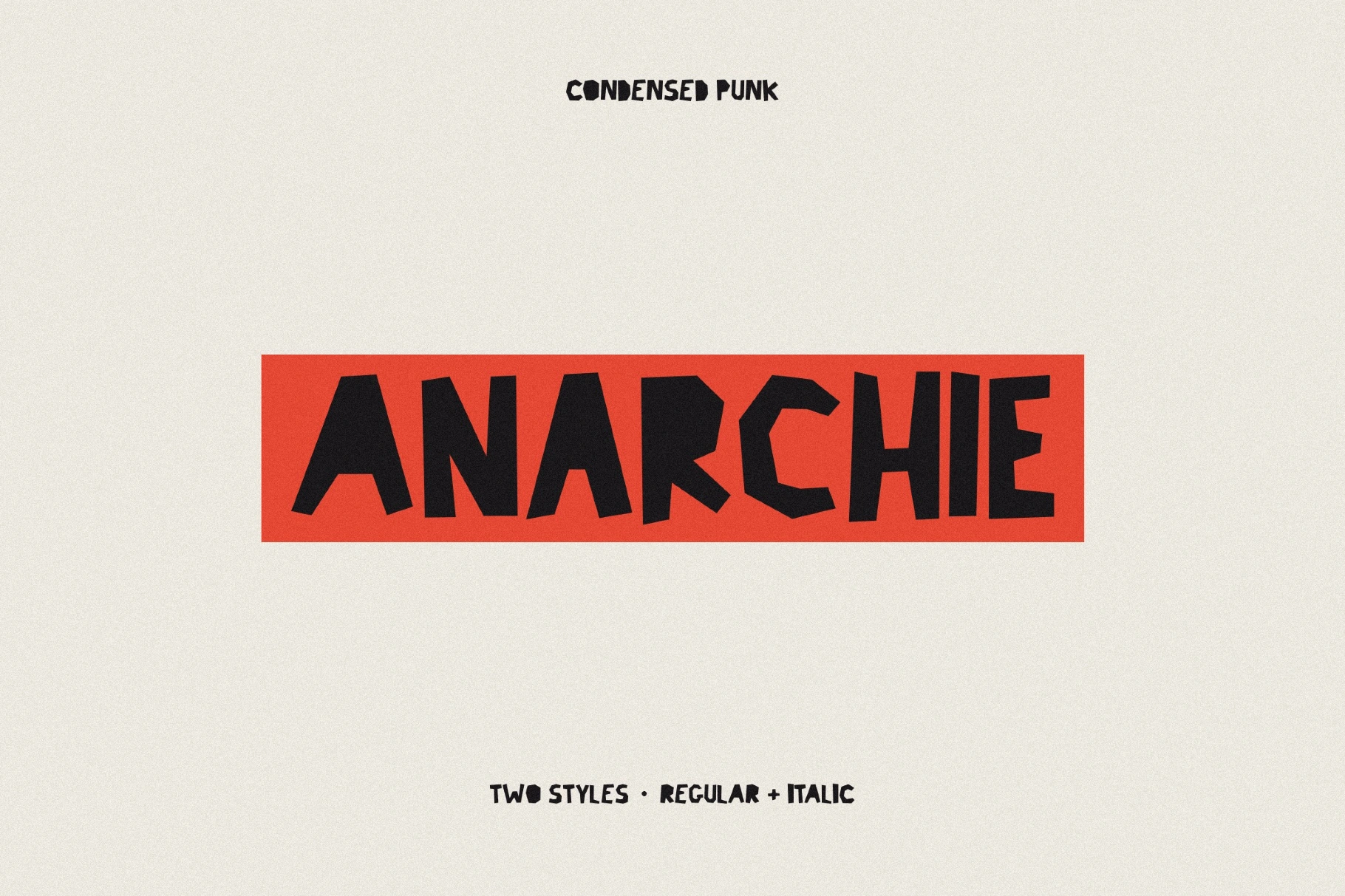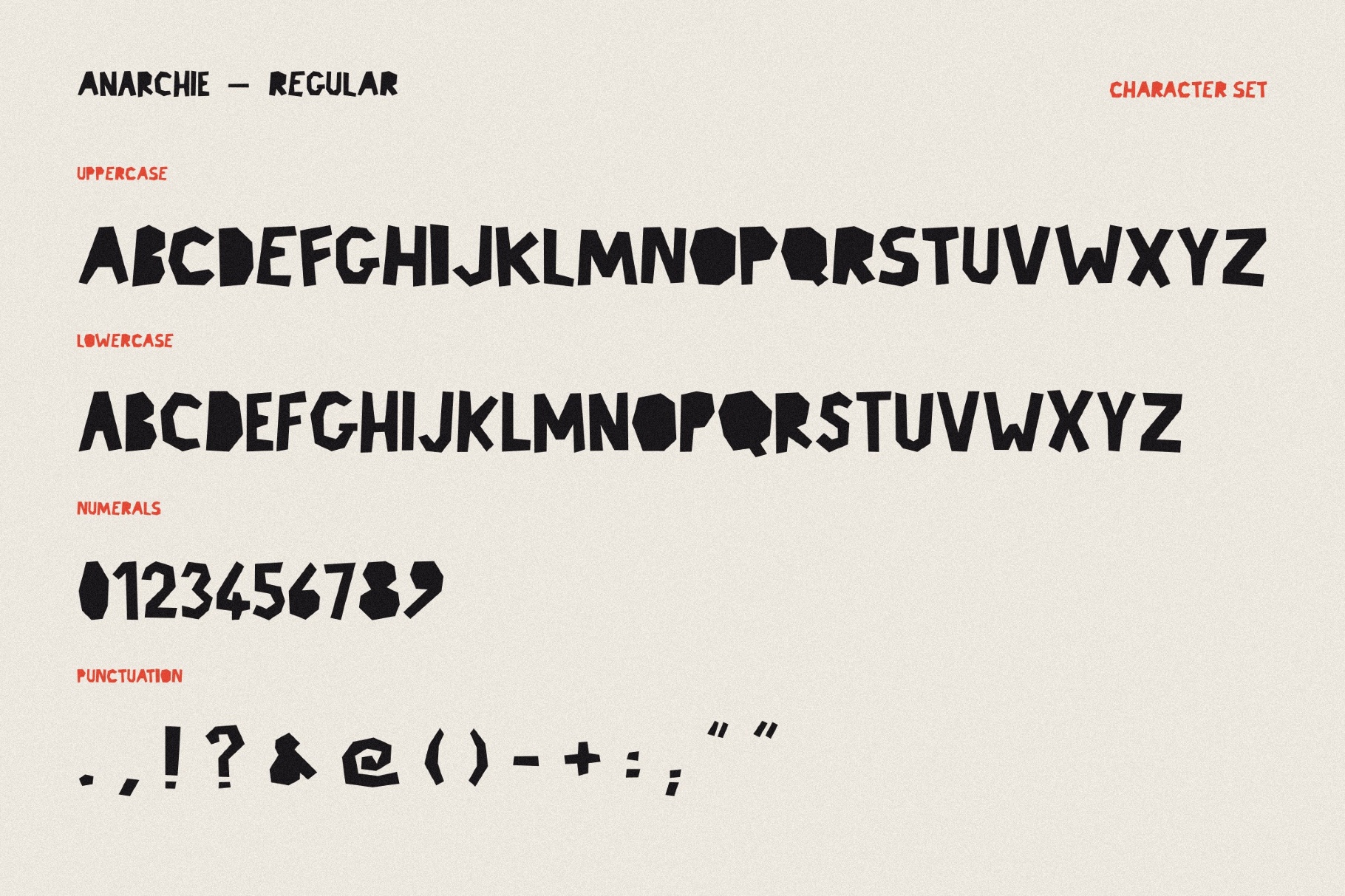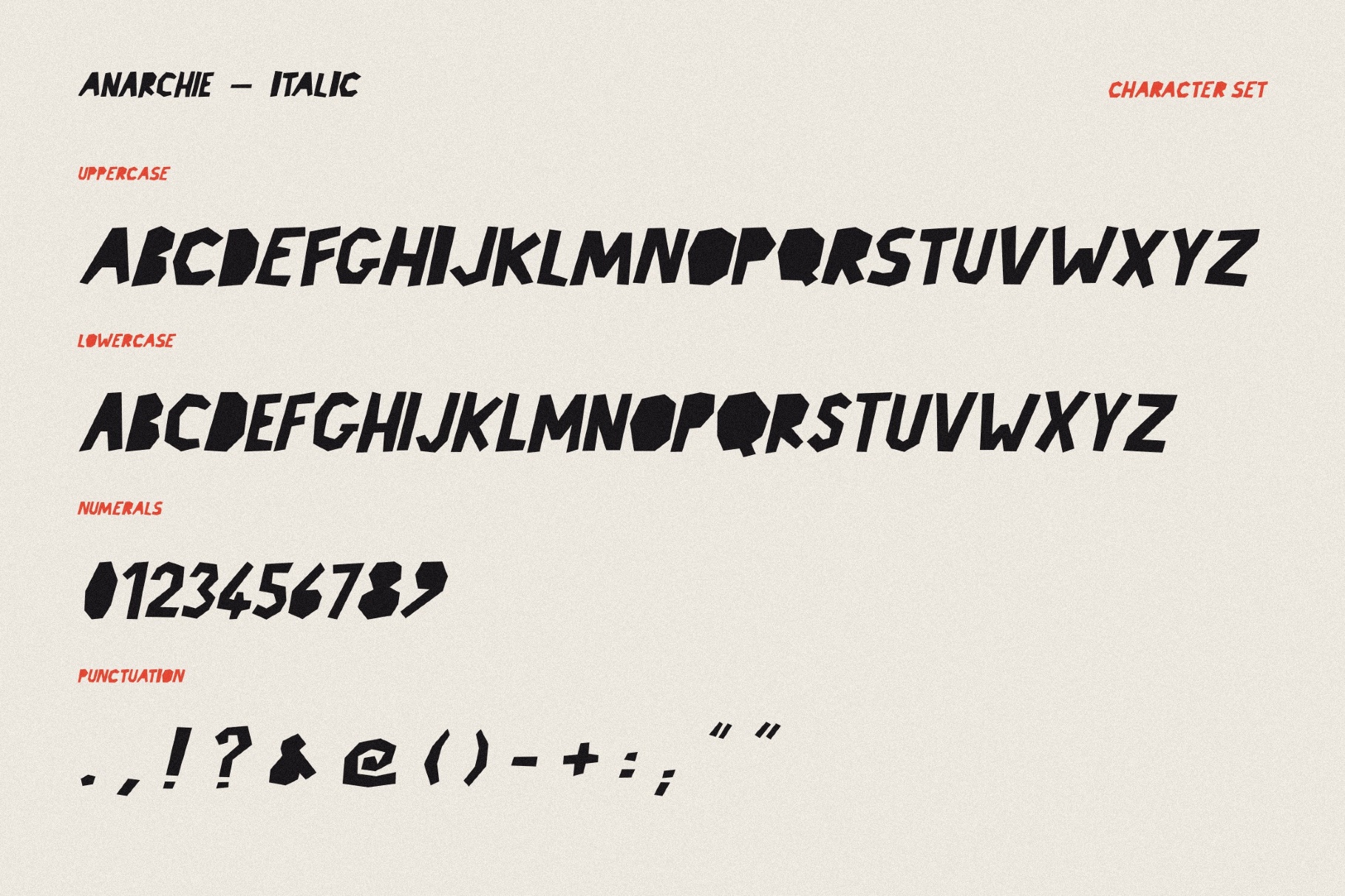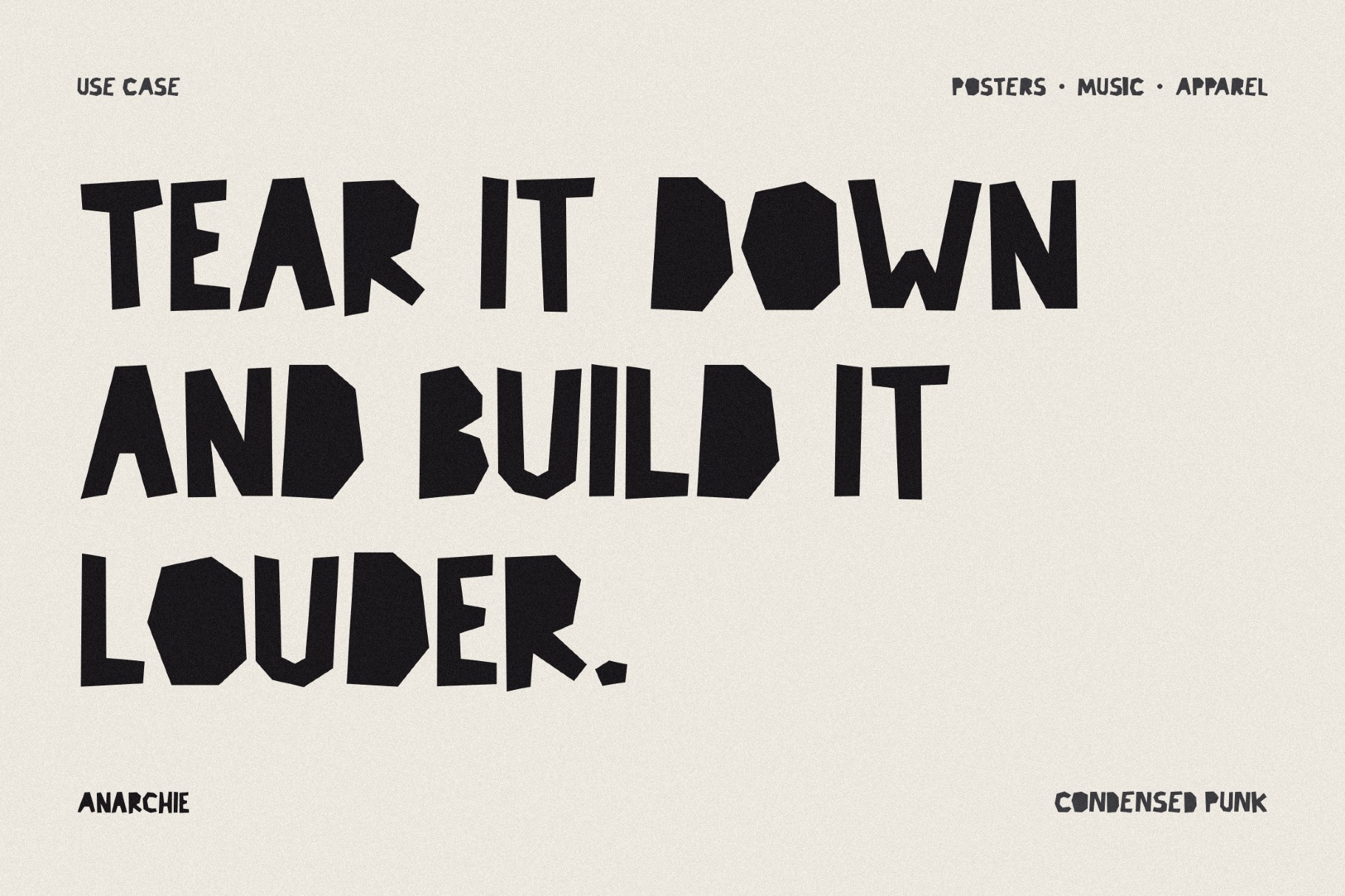
Anarchie Punk Font
Anarchie cuts its alphabet into jagged black forms with a sharp DIY pulse pulled from anarcho-punk flyers, photocopied protest sheets, and anti-design posters. You have a green light to use it everywhere that needs tension from the first glance: gig posters, streetwear tags, magazine mastheads, skate graphics, activist campaigns, album artwork, and branding.
- two styles: Regular and Italic;
- uppercase letters;
- numbers, punctuation, dingbats, and symbols;